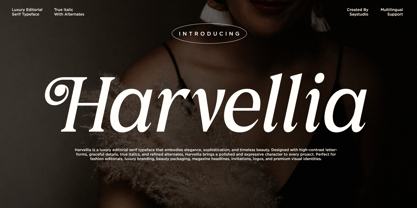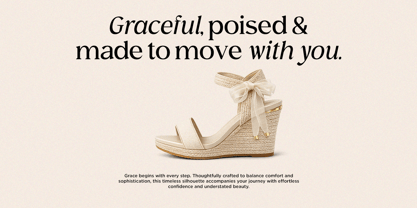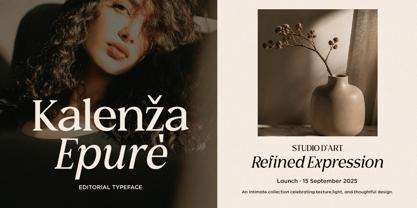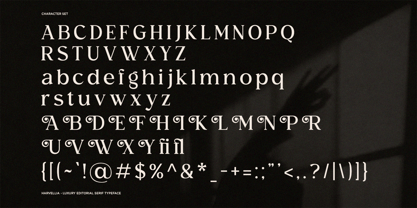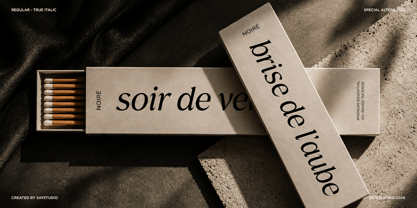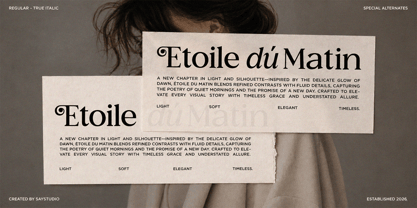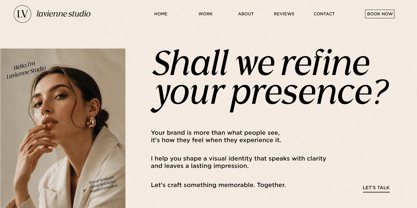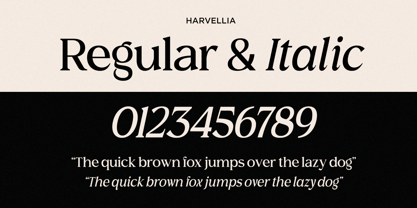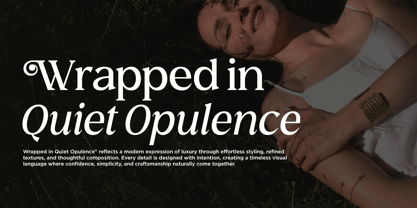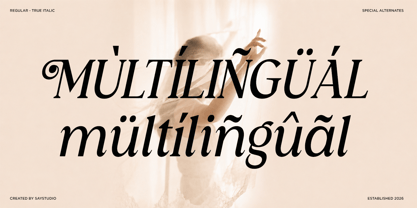
Harvellia
Die Schriftfamilie Harvellia wurde von Mussyayin entworfen und von Say Studio veröffentlicht. Harvellia enthält 2 Stile und Familienpaketoptionen. Mehr über diese Familie
Harvellia is an elegant high-contrast serif font designed for sophisticated and contemporary visual identities. Its graceful curves, refined proportions, and stylish italic complement make it ideal for luxury branding, fashion editorials, beauty campaigns, magazine layouts, invitations, packaging, and premium advertising.
With a distinctive editorial appearance, Harvellia brings a polished and luxurious feel to headlines, logos, display typography, social media graphics, posters, and creative branding projects. The combination of regular and italic styles provides flexibility for creating expressive typographic compositions with a high-end aesthetic.